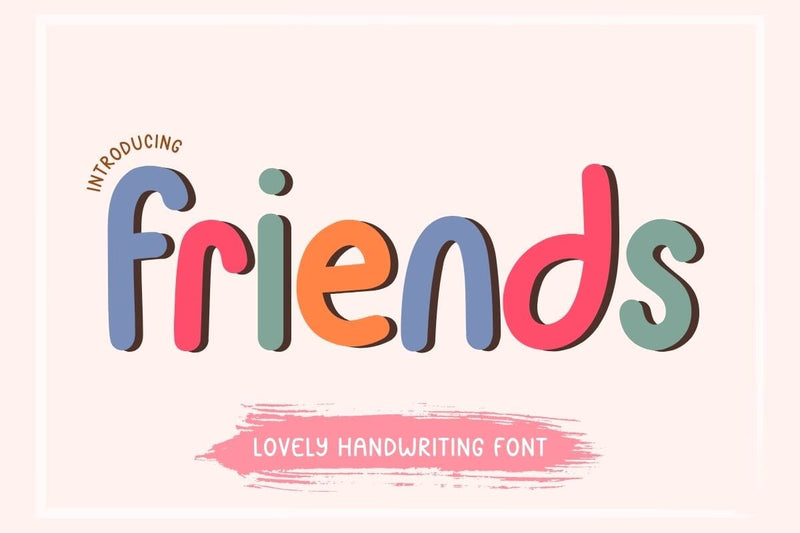
Friends - Cute Handwritten Font
Friends is a lovely colorful handwritten font that will help you enjoy and have fun with your designs. Perfect for creating a wide variety of new designs to match products such as banners, content, mugs, cards, shirts, stationery, social media posts, and more!